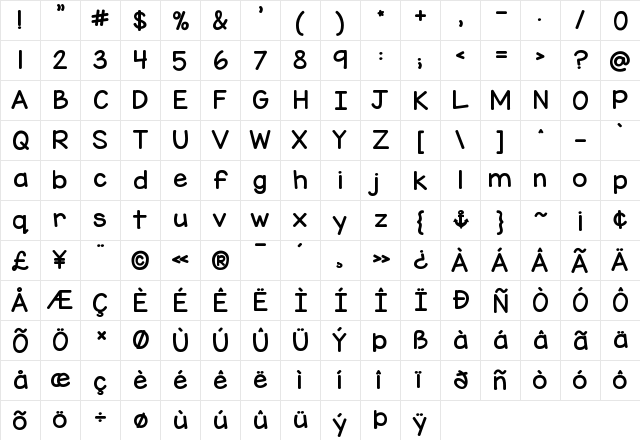
KG Miss Kindy Chunky Regular
| Foundry | Kimberly Geswein |
| Designer | Kimberly Geswein |
Design Context for KG Miss Kindy Chunky Typeface
KG Miss Kindy Chunky offers clean, dependable letterforms without strong stylistic allegiance, making it a practical choice for designers who need flexibility.